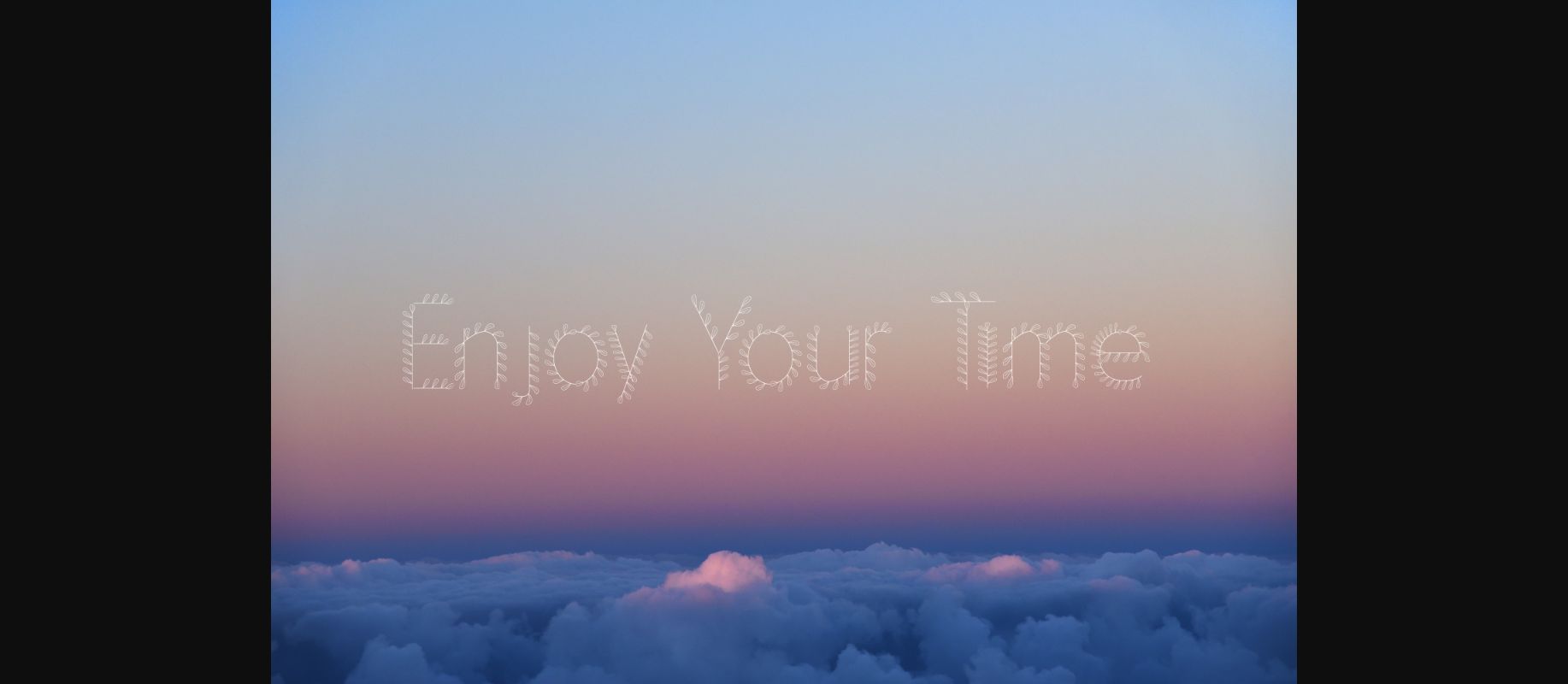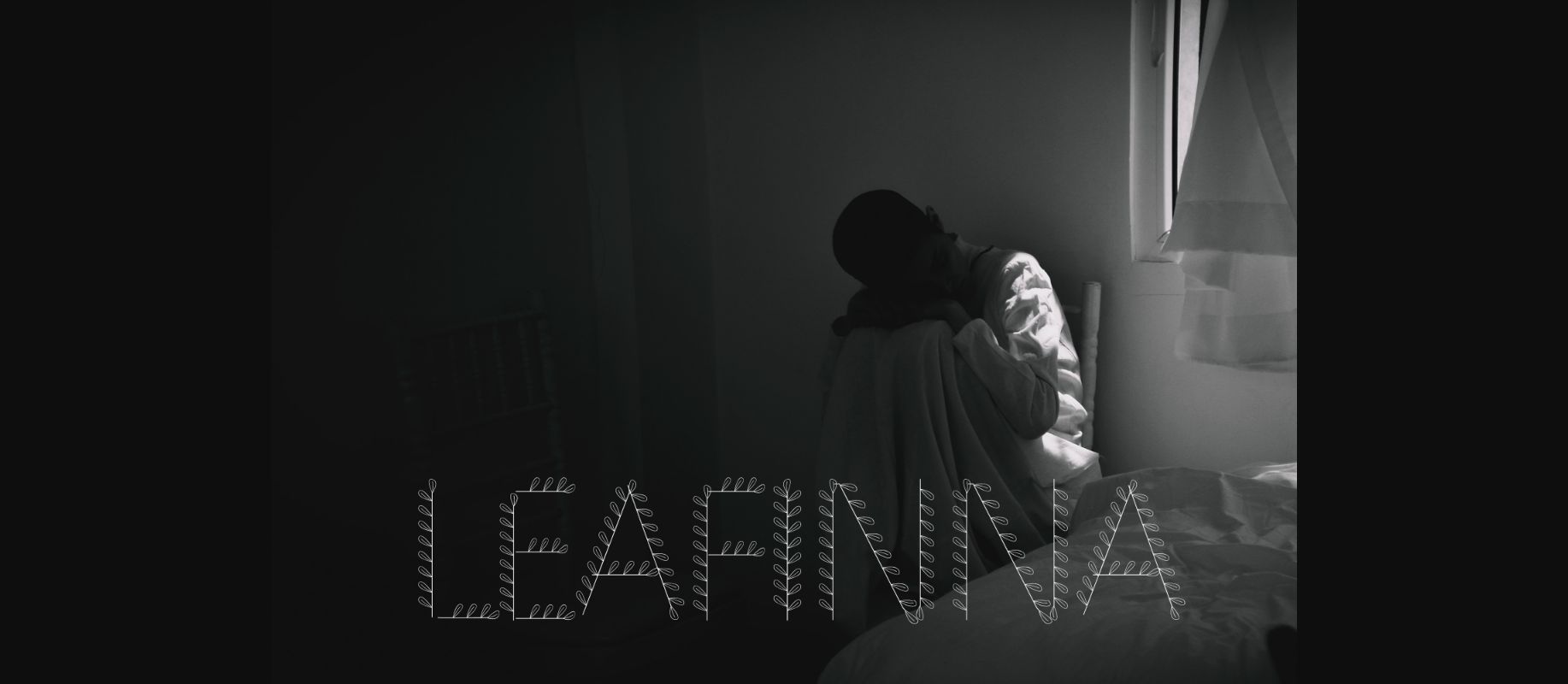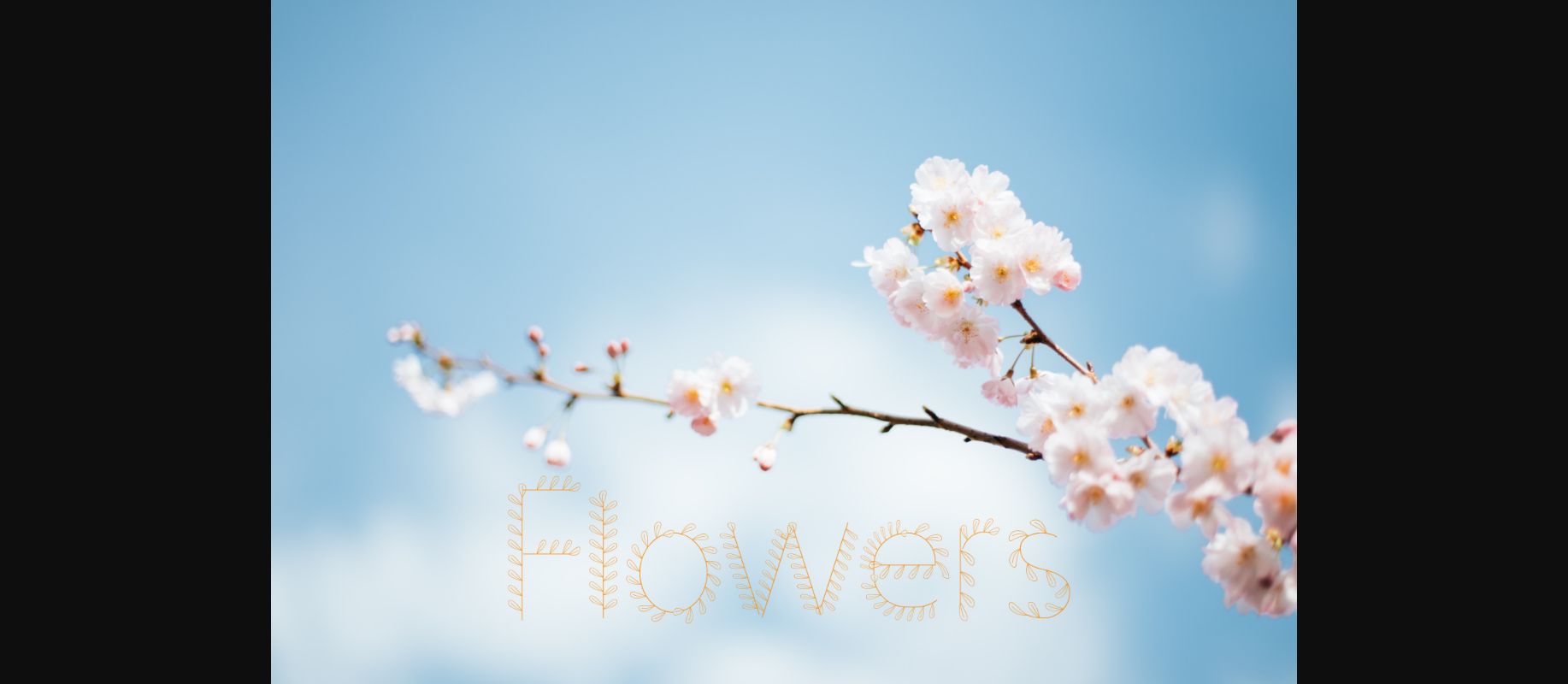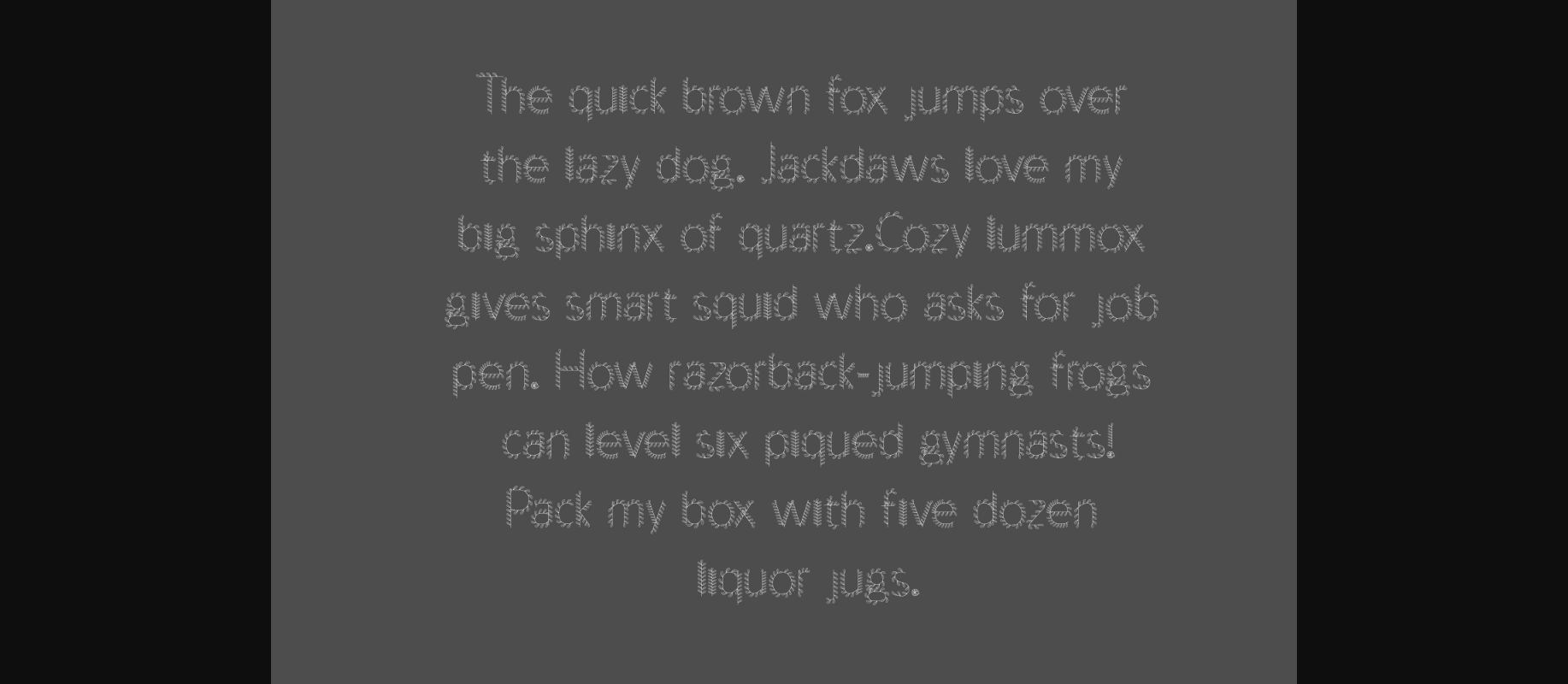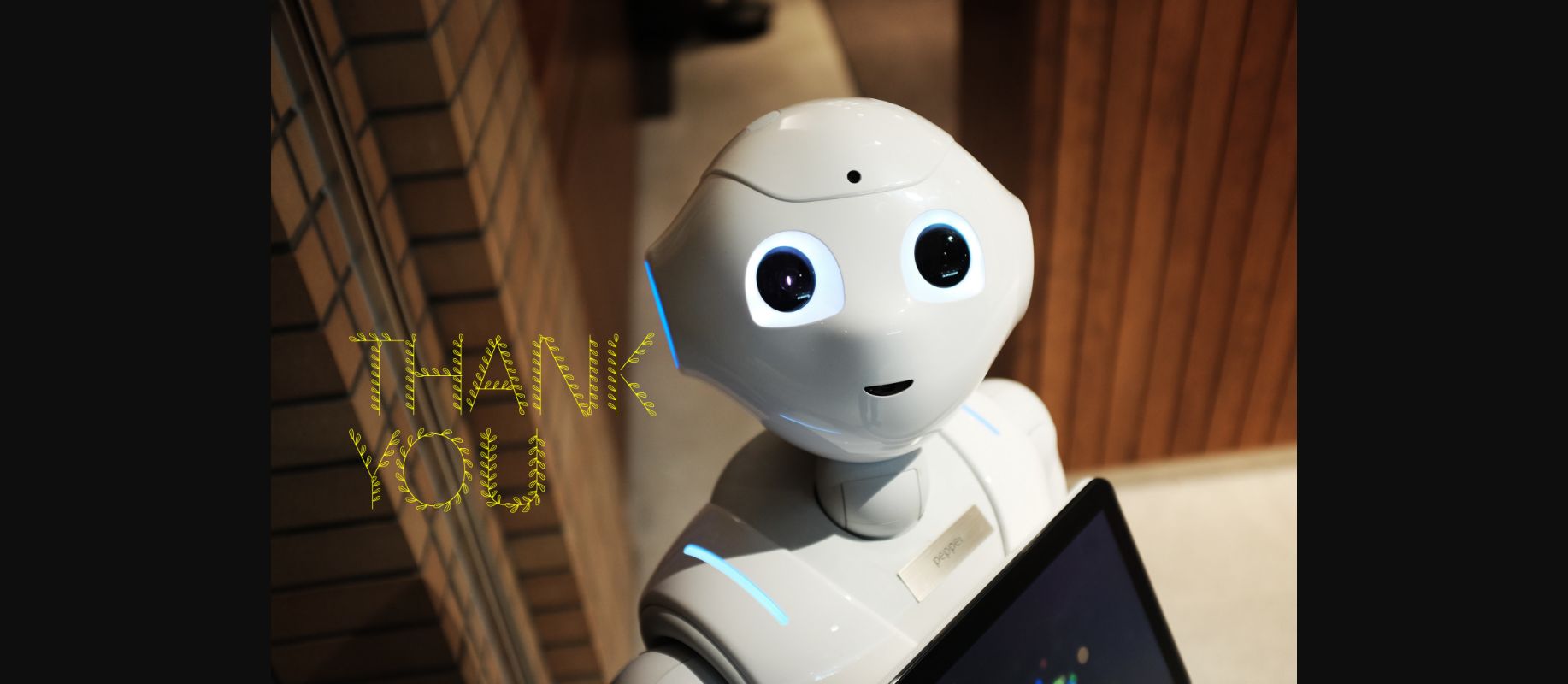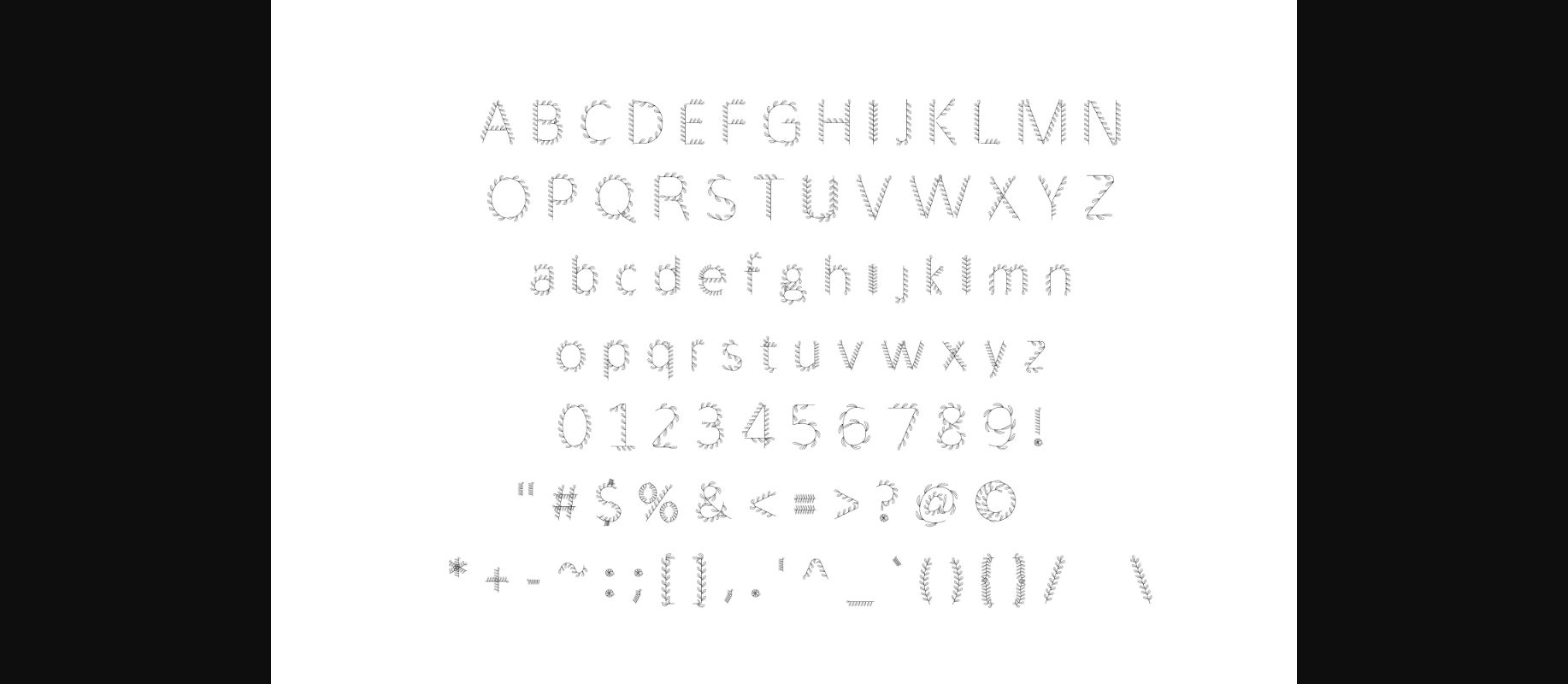
Leafinna Font
About Leafinna Font
Leafinna is a unique decorative font, featuring leaf ornaments. No matter the topic, this font will be an incredible asset to your fonts’ library, as it has the potential to elevate any creation.